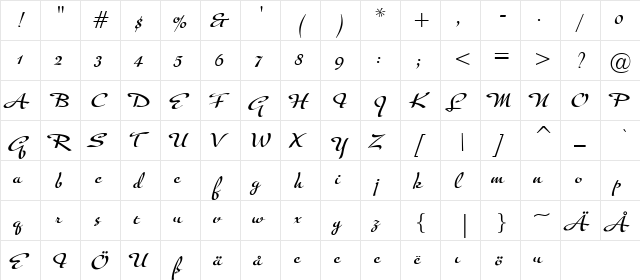
Tiamaria Script Regular
Design Context for Tiamaria Script Typeface
Tiamaria Script flows with the natural rhythm of handwritten lettering, making it ideal for designs that call for warmth and personal expression.
Font Pairing: Combine Tiamaria Script with a simple geometric sans for maximum contrast — the tension between flowing curves and clean structure is a classic typographic pairing.
Pro Tip: Use Tiamaria Script for short runs of text — names, titles, or taglines. Extended body copy in script faces tires the eye quickly.